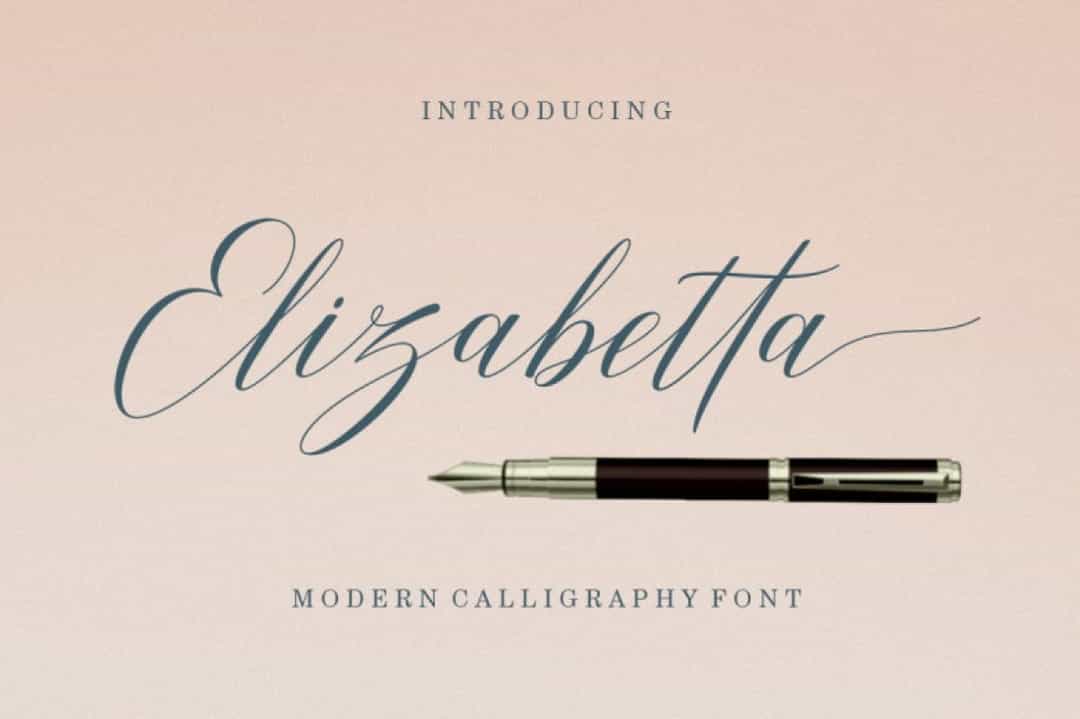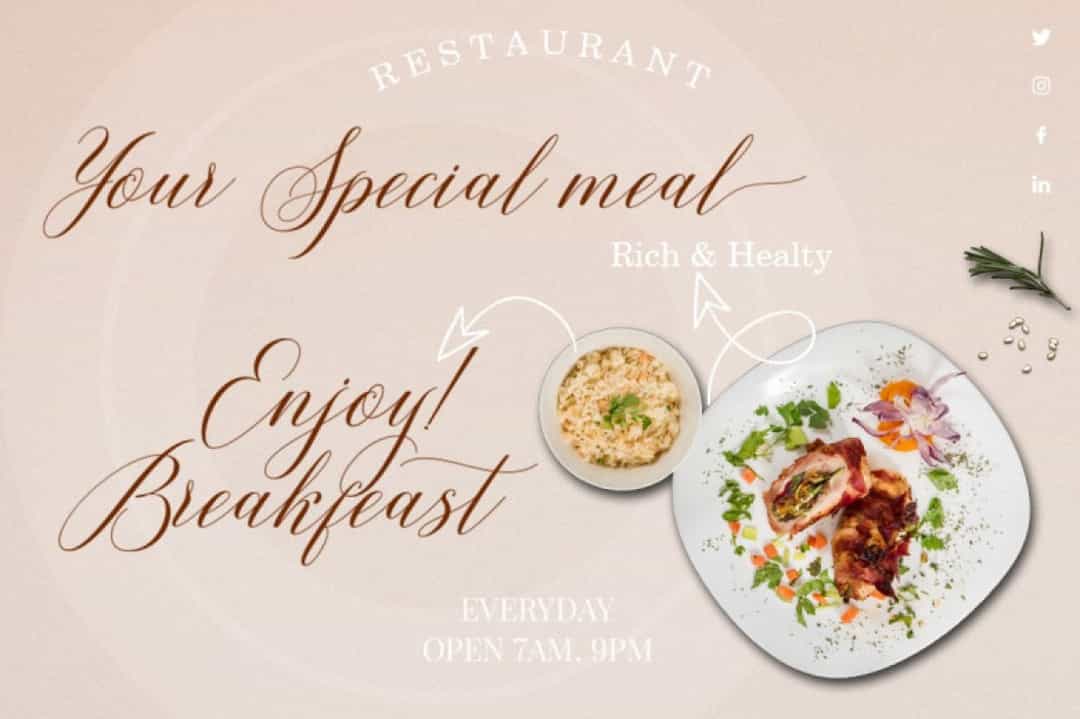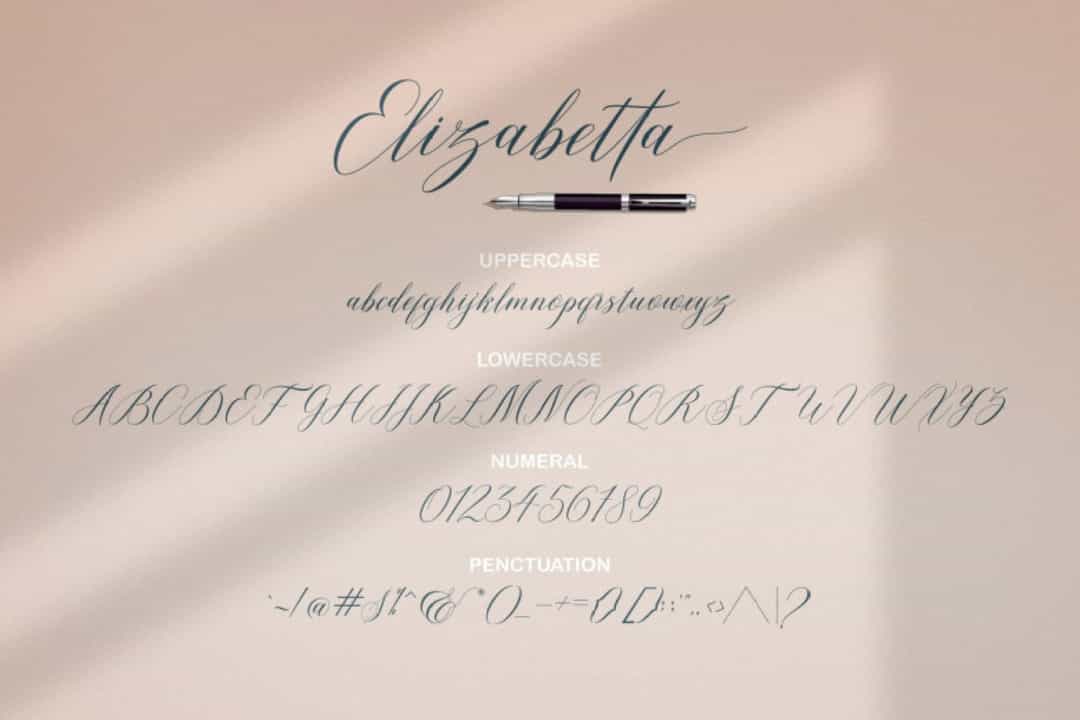
Elizabetta is an Elizabethan calligraphic formal style which has Regular type of font in it. This calligraphy style is casual elegance with Doodle. Elizabetta is versatile and can be applied on logo, product packaging, wedding invitation, headline, branding, signs, labels, signature books, book covers, posters, quotes, etc.